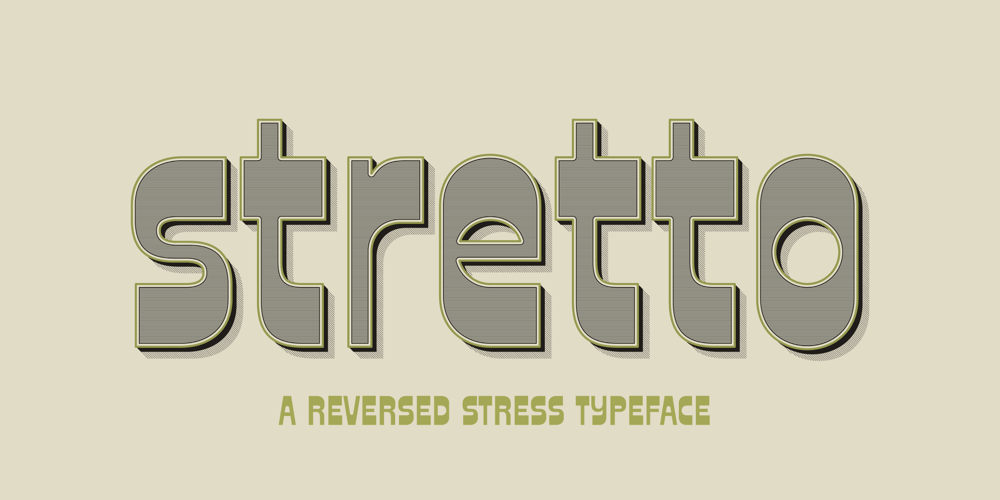
Stretto Font Family was designed by Aldo Novarese, Patrick Griffin and published by Canada Type. Stretto contains 1 styles and family package options. Stretto (Italian for narrow) is a revival, correction and expansive update of an Aldo Novarese reverse-stress font called Sintex, which he did for VGC in 1973.Openly idiosyncratic and playfully rebellious in its design, this alphabet fuses the straights and rounds in an unusual manner, riffing on the idea of hand-made sign and wood type forms while adhering to its odd grid’s parameters. In spite of its counter-stress, its legibility is high and even, helped by its unicase forms and very distinct counters.First released in 2007, it became quite popular with film studios and nostalgia designers (Sintex was the font used for David Bowie’s Hunky Dory album and Life on Mars? single). A dozen years later we revisited it for an update. Stretto now comes with over 660 characters and includes Pan European language support.